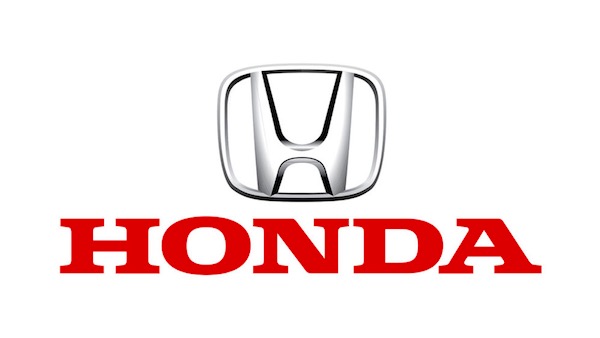
Honda logo is perhaps so familiar to everyone. Honda is a famous major auto company from Japan. And Honda font is based on its logo for you.
Honda Logo Font